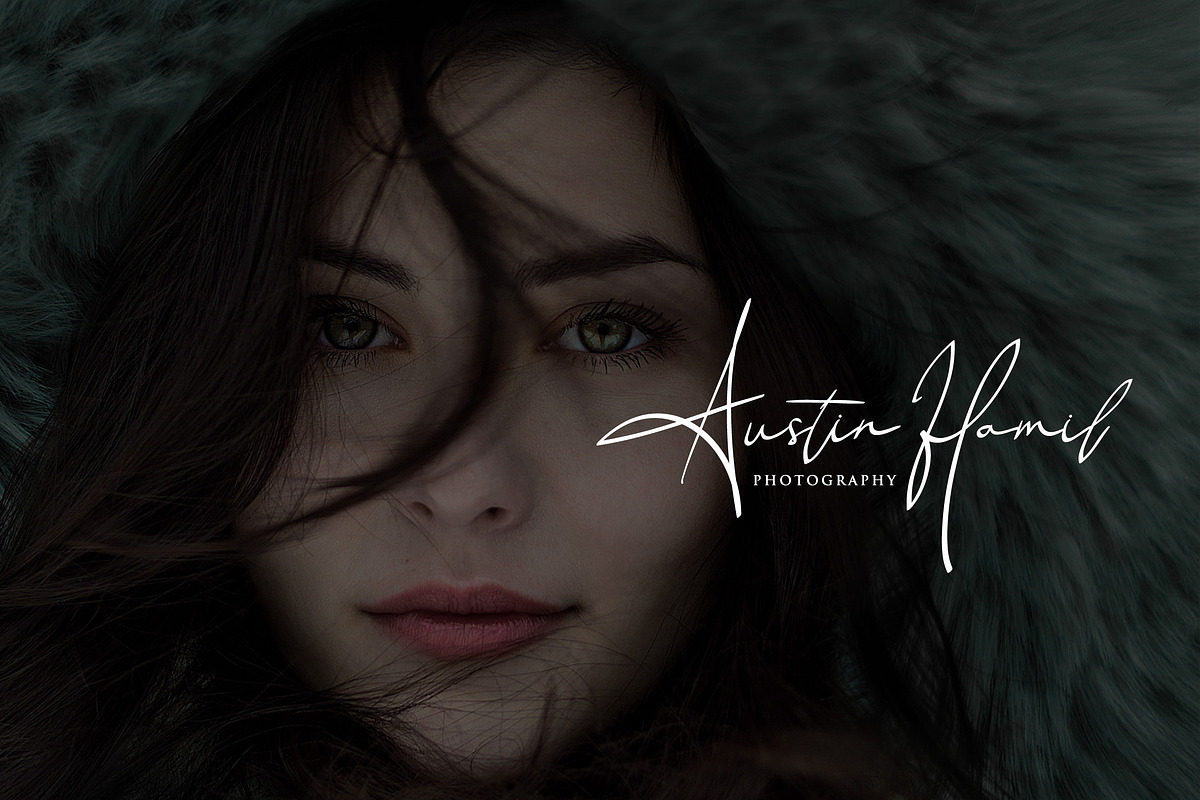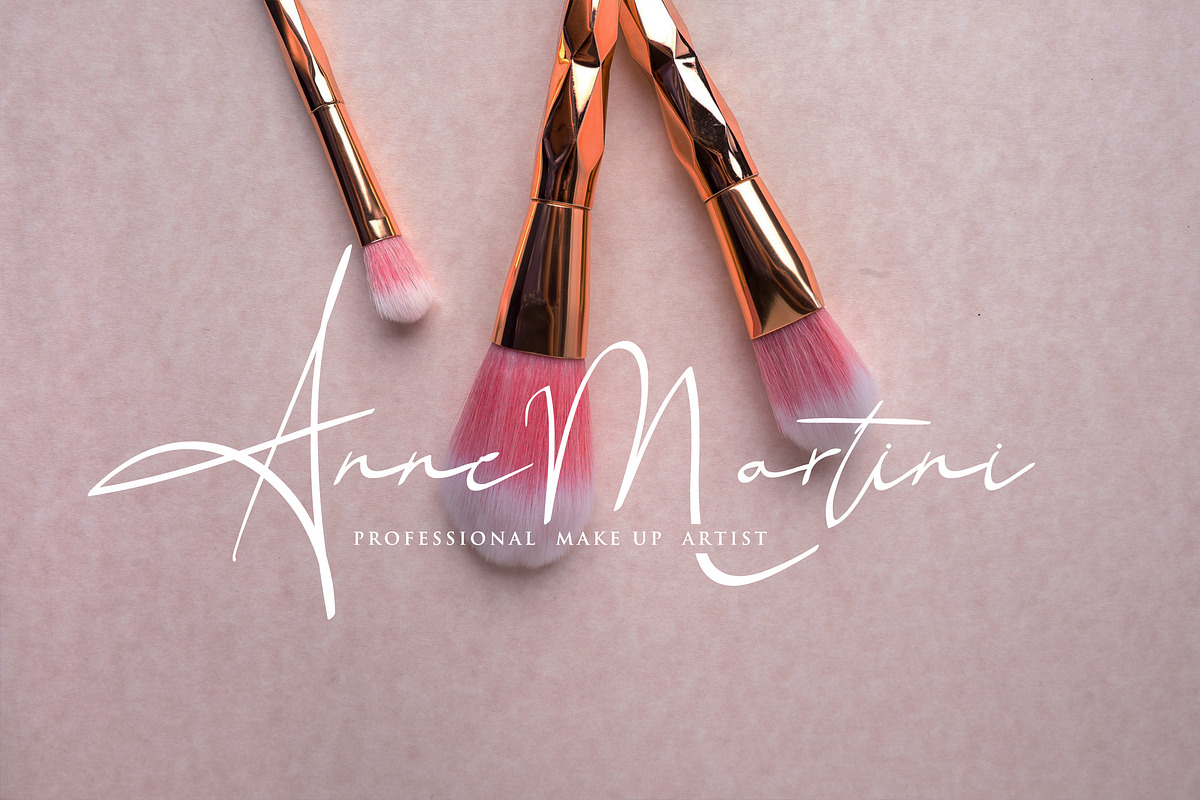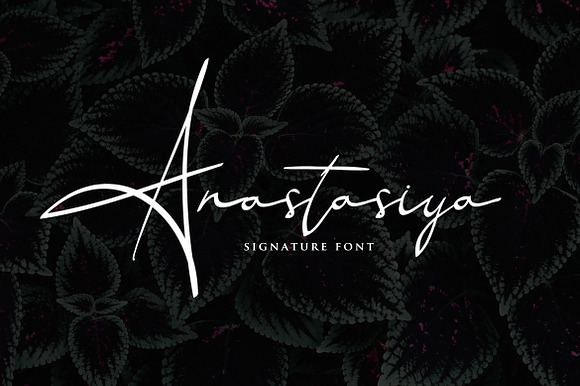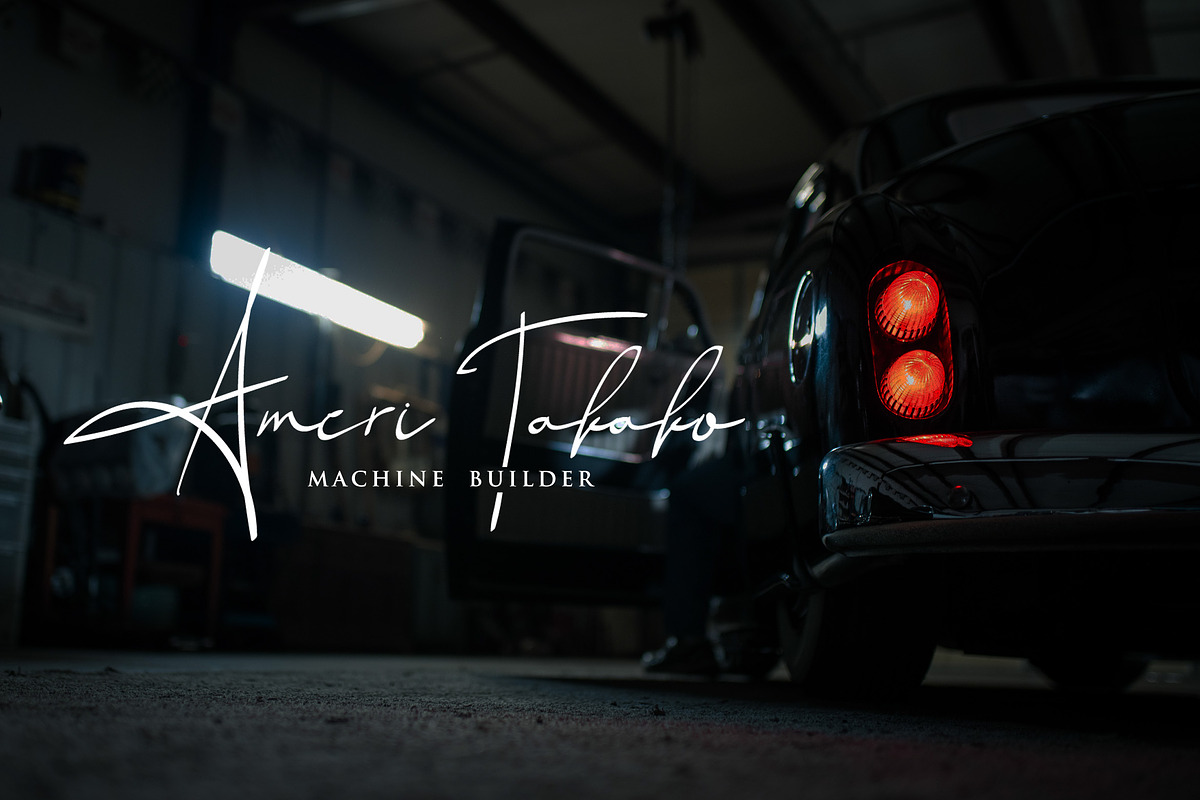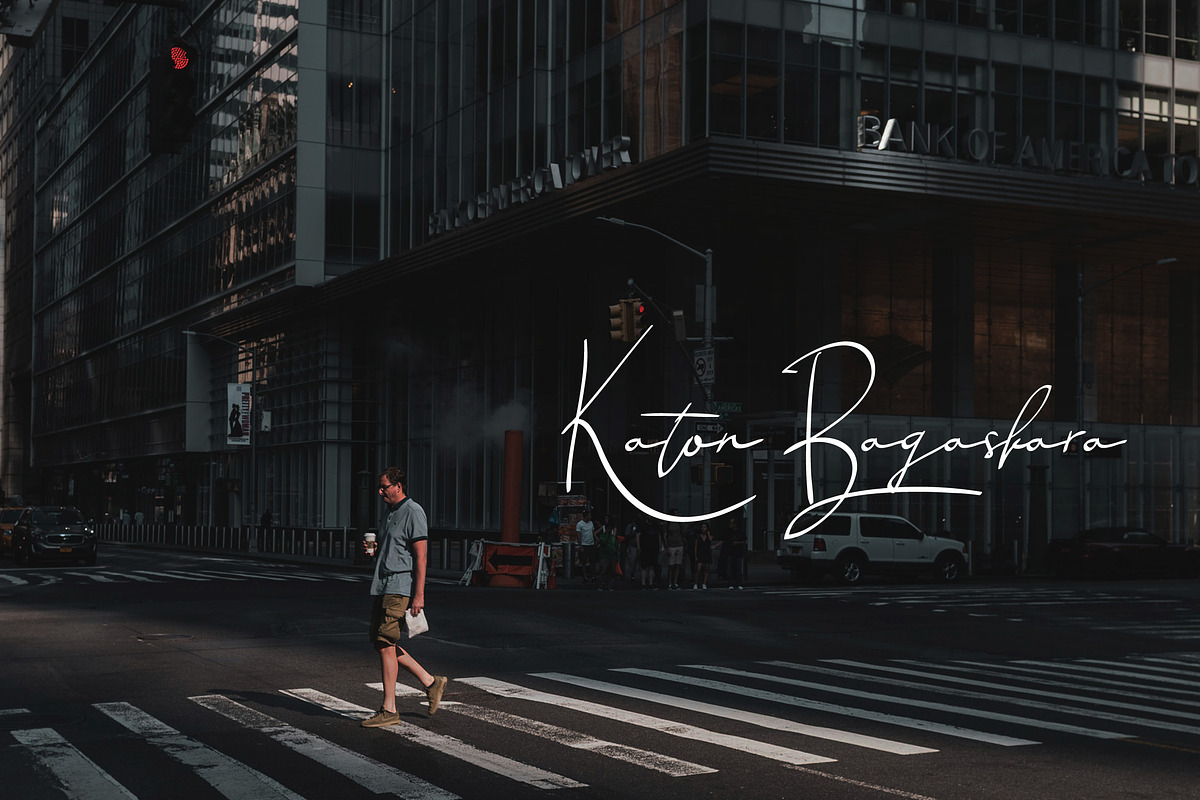
Anastasiya Elegant Signature Font
Anastasiya is modern script that perfect for photography, signature, branding.
It is so beautiful and classy, simple but strong.
Anastasiya Elegant Signature Font by 160 Studio fits naturally into Branding, posters, packaging, typography.